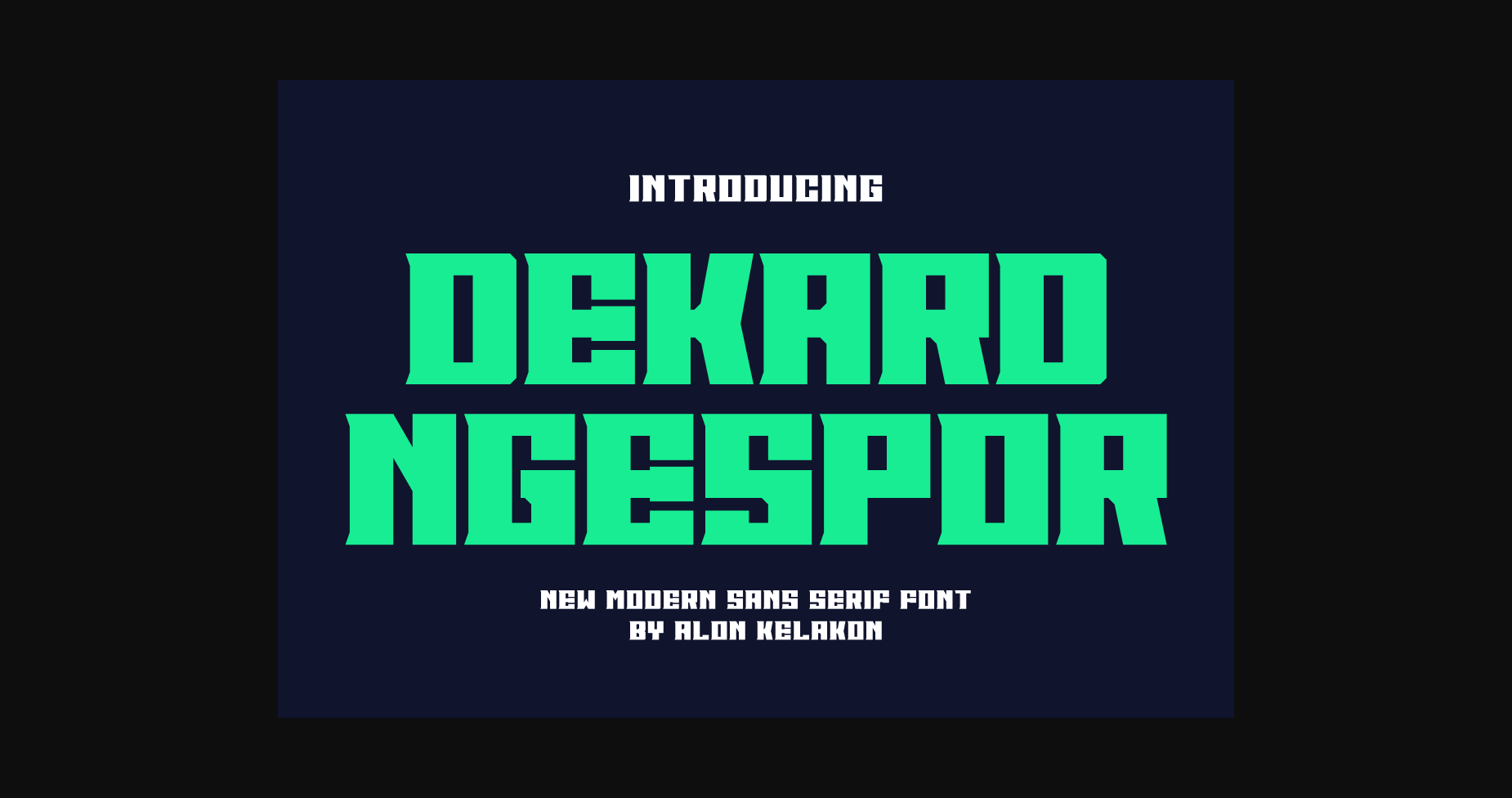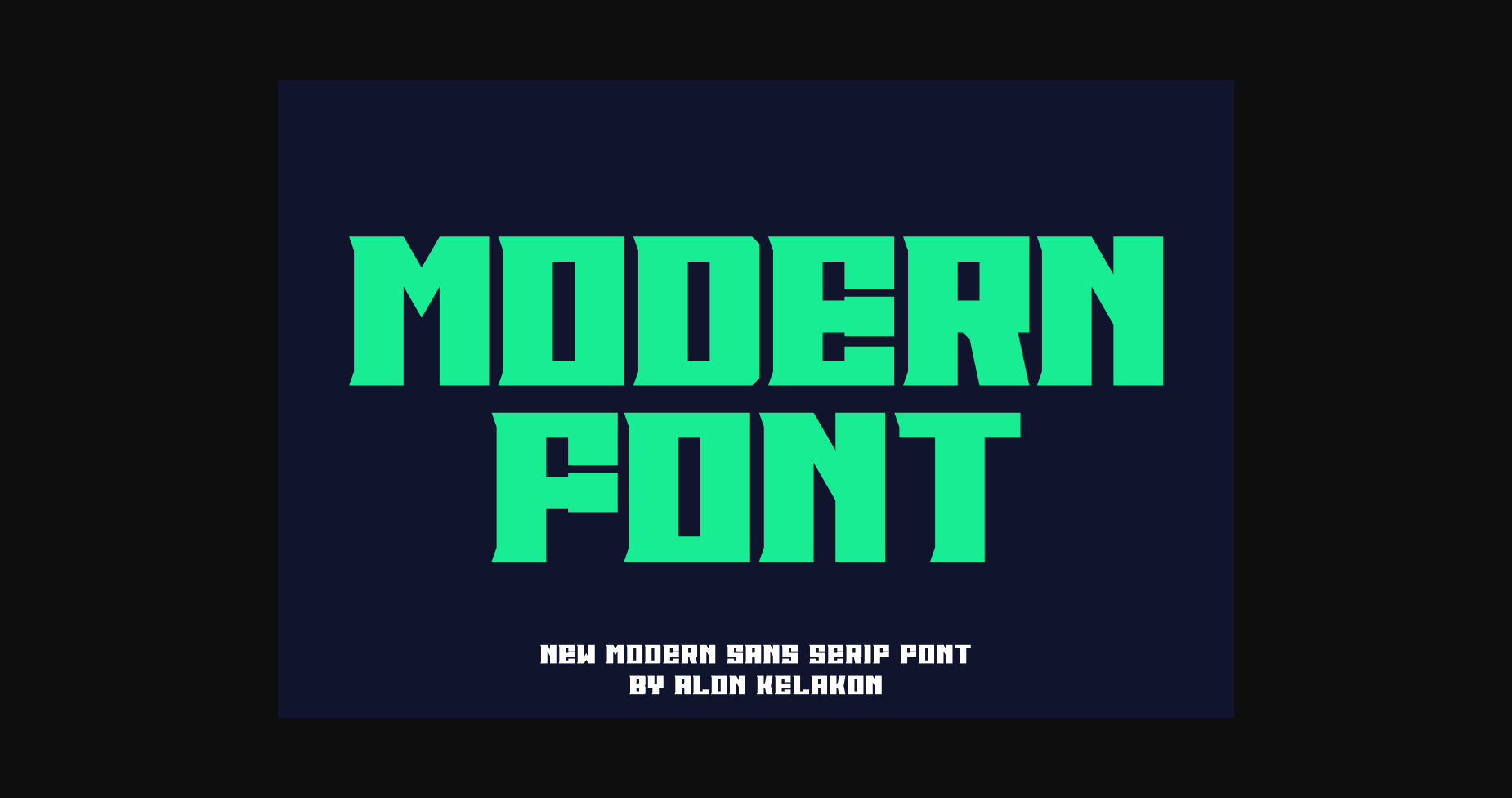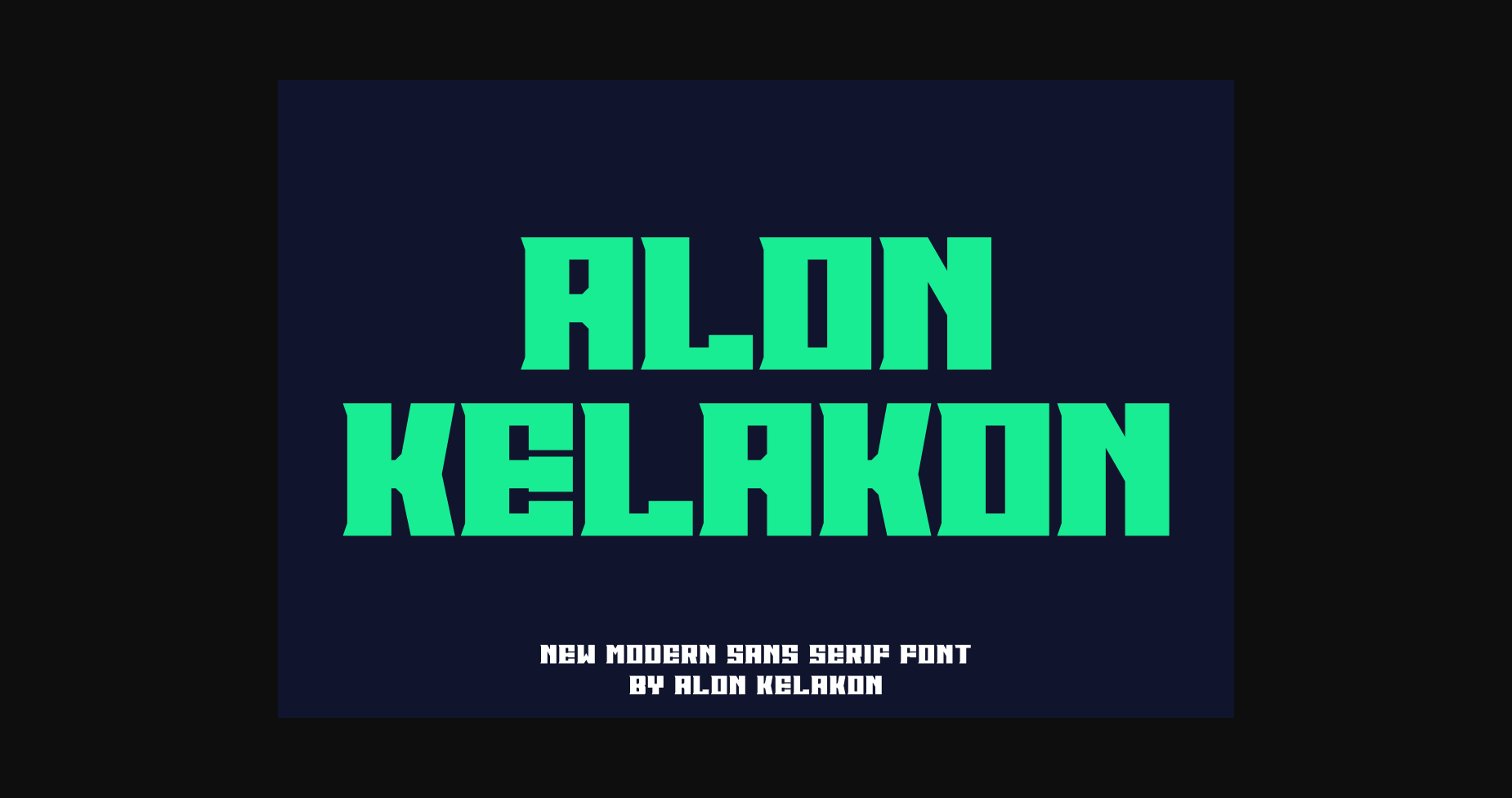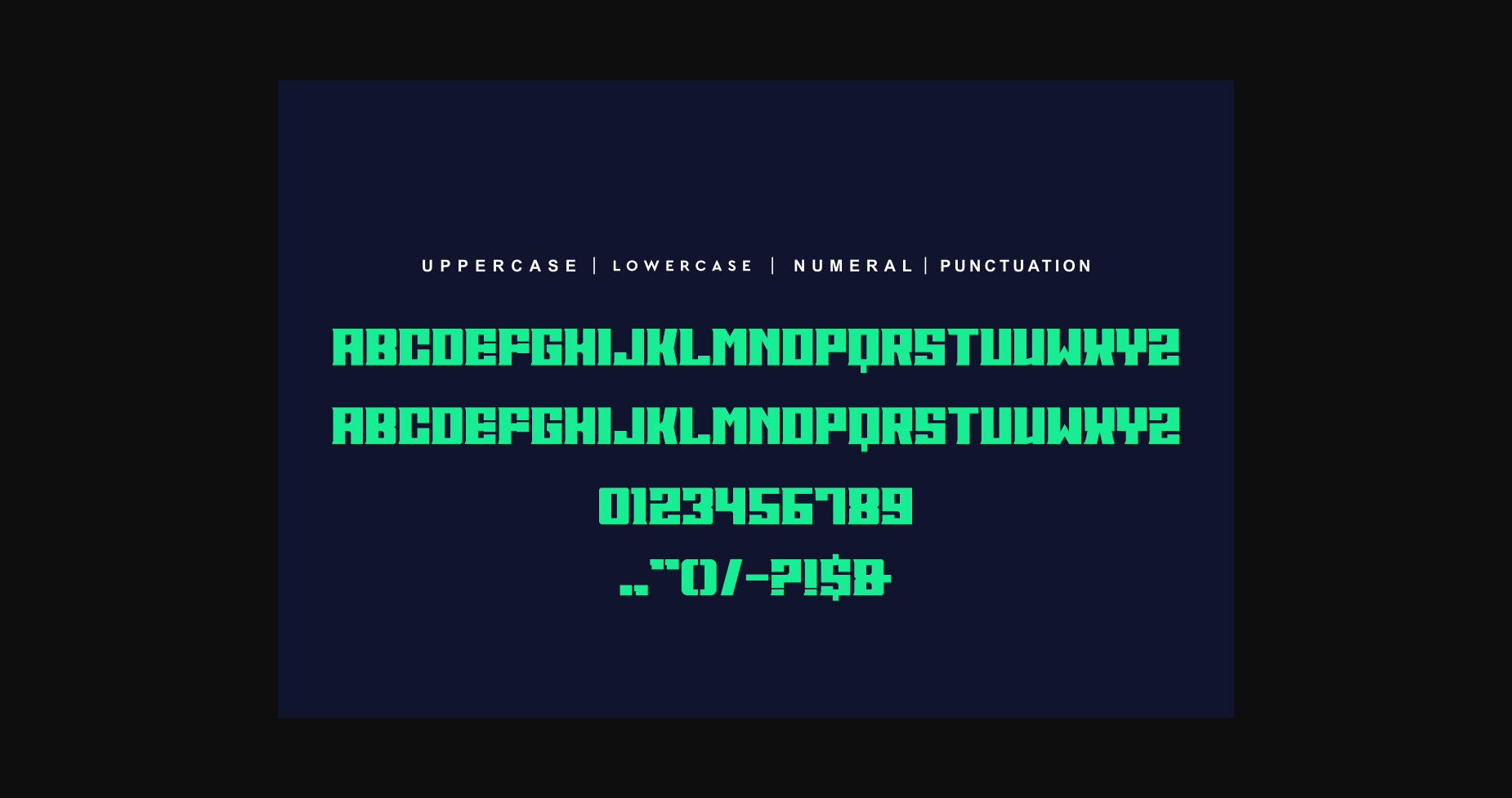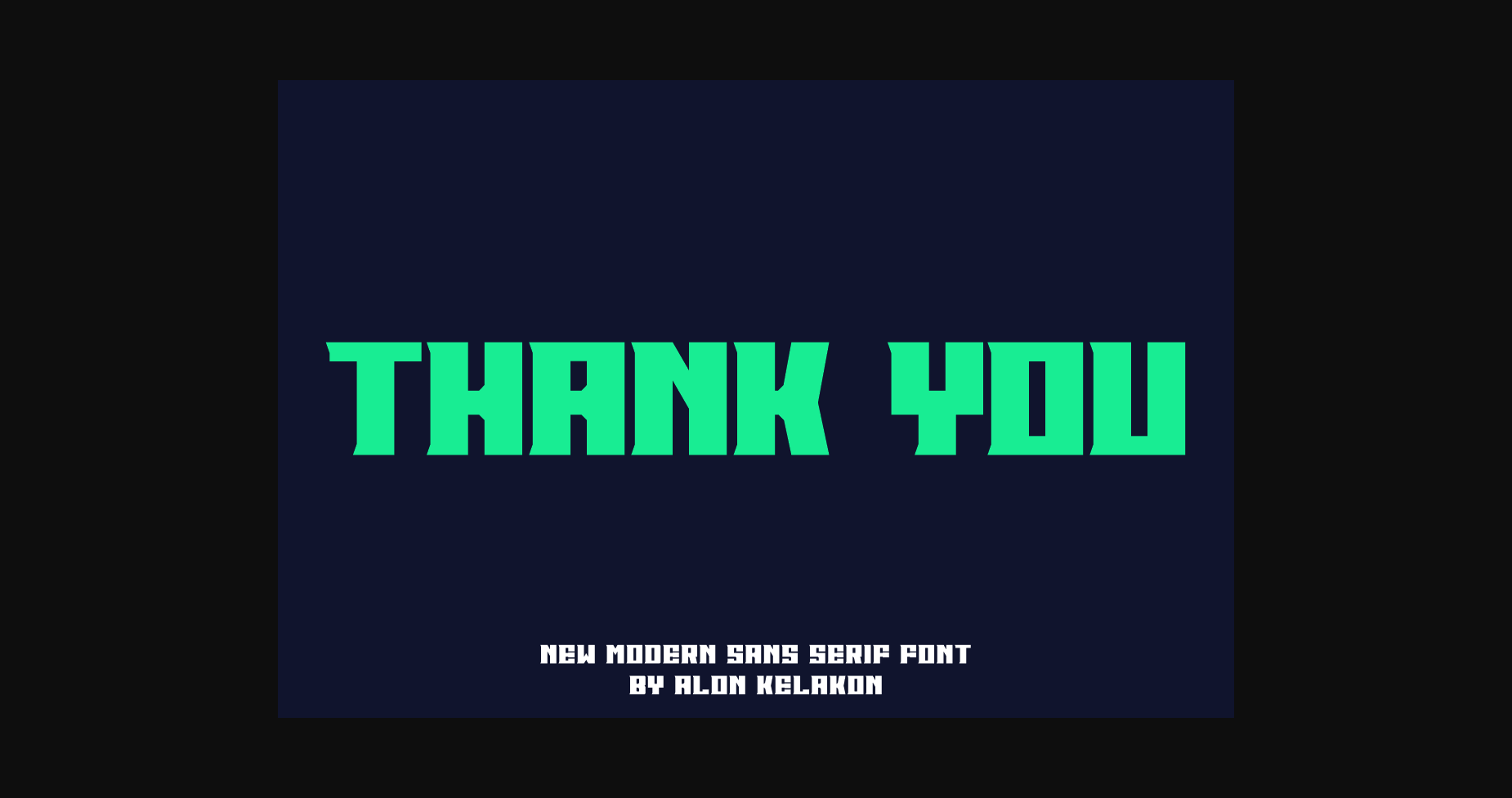
Dekard Ngespor Font
About Dekard Ngespor Font
Dekard Ngespor Font is unique . Ready to use for your design like labeling, clothing, movie sceen, poster, movie title, gigs, album covers, logos, and much more.